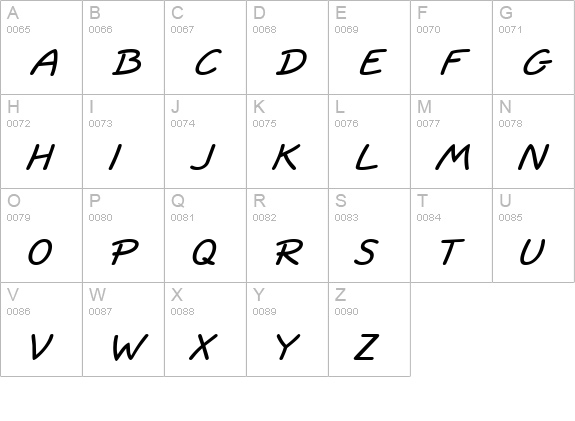
Short Hand Heavy BoldItalic is a heavy, high-impact variant in the Short typeface family \xE2\x80\x94 well suited to high-impact headlines, posters, and display advertising.
The Short Hand Heavy BoldItalic font is a striking and eye-catching typeface that combines the elements of boldness, heaviness, and italics to create a unique and powerful design. With its thick strokes and slanted characters, this font exudes a sense of strength and confidence that instantly captures attention. This font is perfect for projects that require a strong visual impact, such as headlines, posters, logos, and branding materials. Its distinct style adds a touch of personality and flair to any design, making it stand out from the crowd. The best part is that the Short Hand Heavy BoldItalic font is available for free! You can easily download it at FontsMarket.com, a trusted source for high-quality fonts. By making this font freely available, it enables designers and creatives to access and utilize its powerful features without any barriers. Whether you are a professional designer or a hobbyist, the Short Hand Heavy BoldItalic font offers a versatile and captivating option to enhance your visual creations. Its unique combination of boldness, heaviness, and italics sets it apart from other fonts, making it a valuable addition to any font library. Don't miss out on the opportunity to download the Short Hand Heavy BoldItalic font for free at FontsMarket.com. Take advantage of its striking design and unleash your creativity with this bold and powerful typeface.